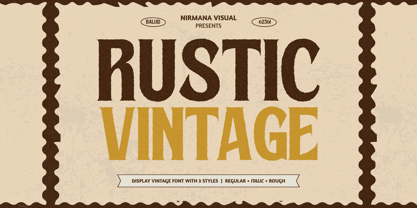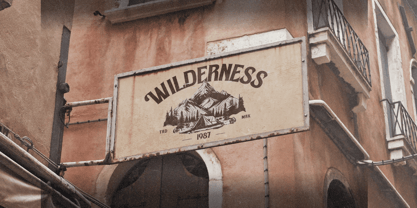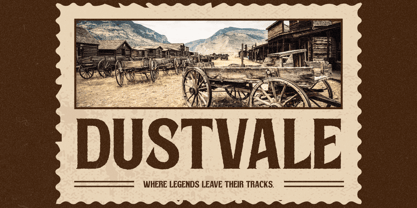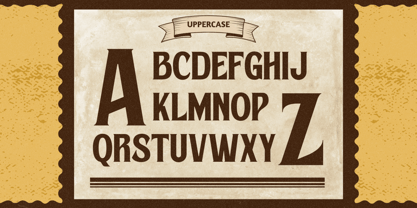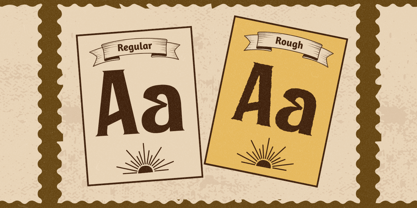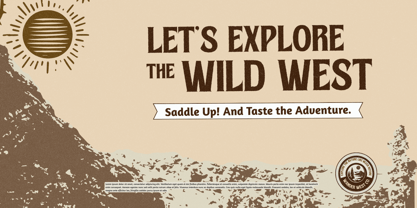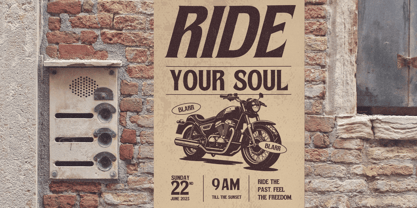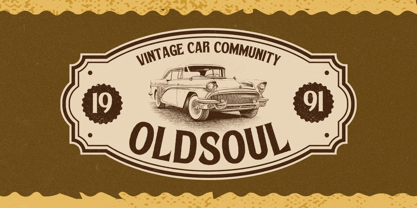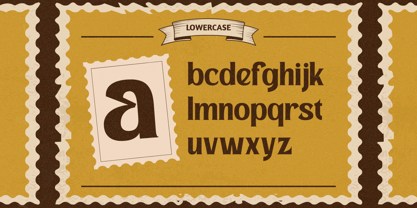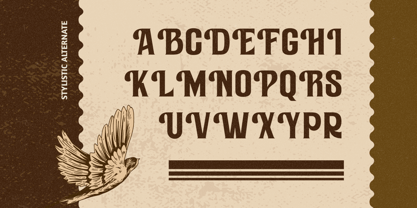
Rustic Vintage
by Nirmana Visual
The Rustic Vintage Font Family was designed by Sigit Dwipa and published by Nirmana Visual. Rustic Vintage contains 2 styles and family package options. More about this family
Rustic Vintage is a classic typeface inspired by old-fashioned charm and handcrafted textures. Featuring Rough, Regular, and Italic styles, this font brings a timeless rustic feel to your designs. Perfect for logos, labels, packaging, and posters, Rustic Vintage adds warmth and authenticity to every project. Its worn edges and organic flow make it ideal for vintage branding, coffee shops, apparel, and artisan products seeking a nostalgic yet stylish touch.